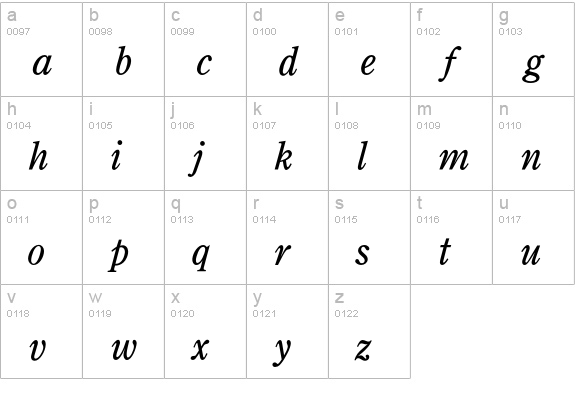
CenturyOldstyleICGItalic Font Details
CenturyOldstyleICGItalic is a classic and elegant font style that exudes sophistication and charm. With its intricate italic design, this font brings a touch of vintage flair to any project or design. The graceful curves and slanted angles of CenturyOldstyleICGItalic make it perfect for conveying a sense of timelessness and refinement. What makes CenturyOldstyleICGItalic even more appealing is that it is available for free download at FontsMarket.com. This means that you can easily add this beautiful font to your collection without any cost, allowing you to enhance your creative projects with a touch of old-world elegance. Whether you are designing invitations, posters, or branding materials, CenturyOldstyleICGItalic is sure to make a stylish statement and captivate your audience.